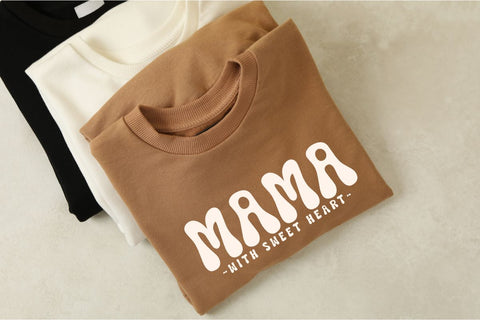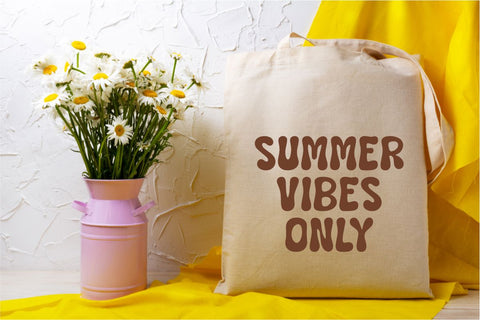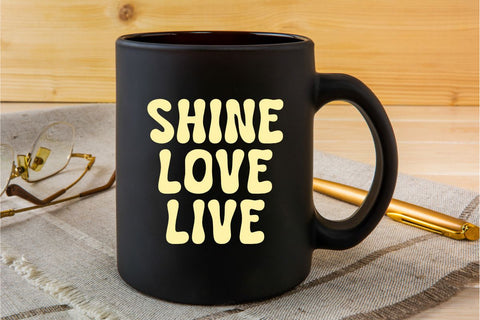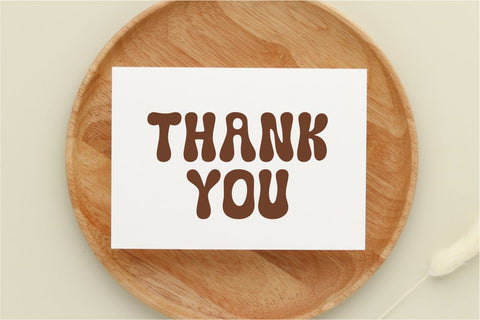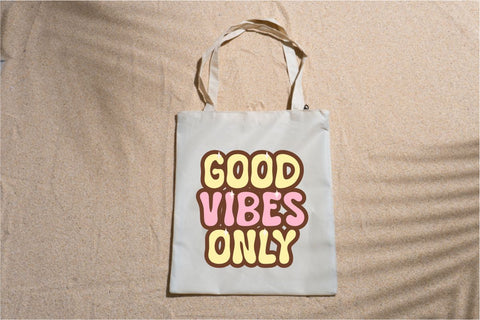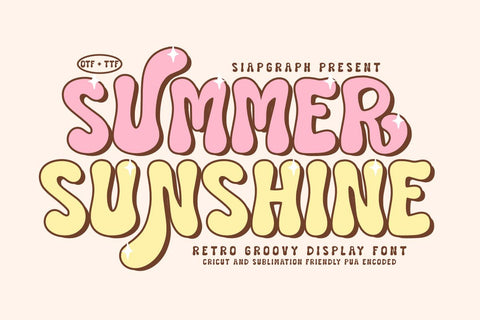
Summer Sunshine - Retro Groovy Display Font
Summer Sunshine is a fun retro groovy display font with a cheerful personality and bubbly curves, perfect for creators who love colorful and playful design styles. Inspired by 70s sunshine vibes and pastel tones, this font brings a nostalgic charm to your DIY projects. Ideal for Print On Demand items like t-shirts, mugs, tumblers, tote bags, and stickers. It’s also a favorite among sublimation crafters, Cricut users, and Etsy design sellers. This font is fully PUA encoded and available in OTF and TTF format, making it easy to access and use in any design software.